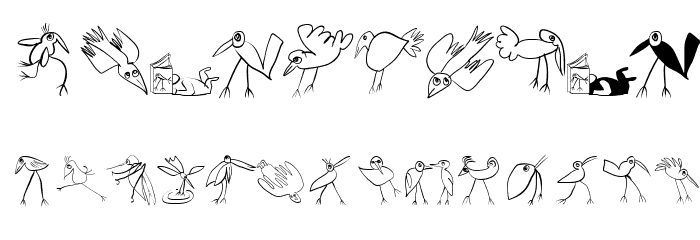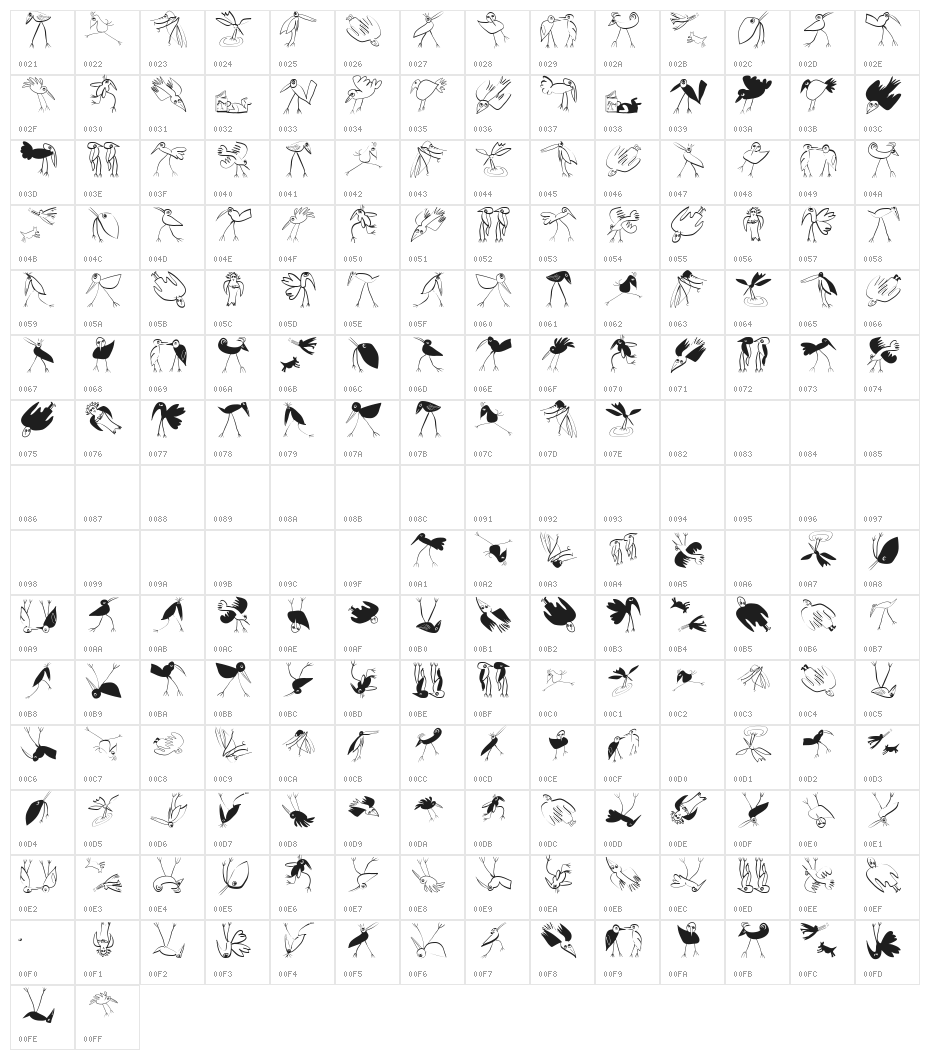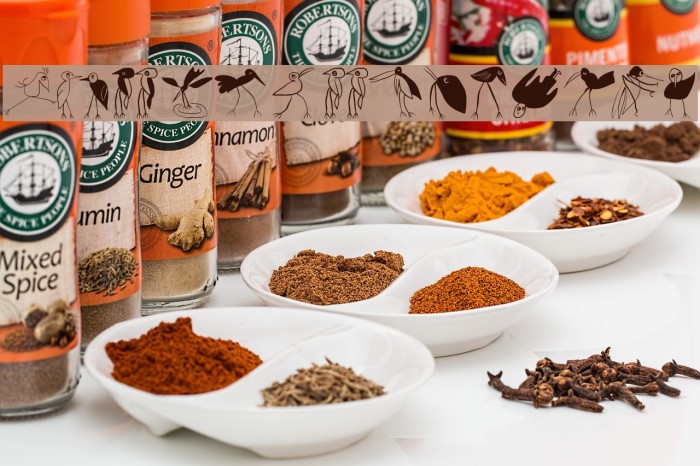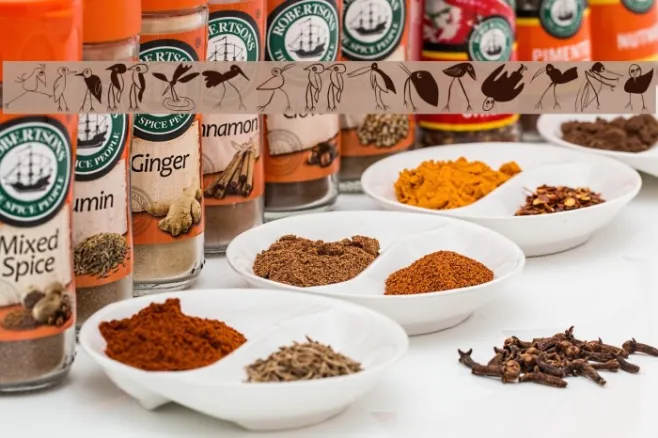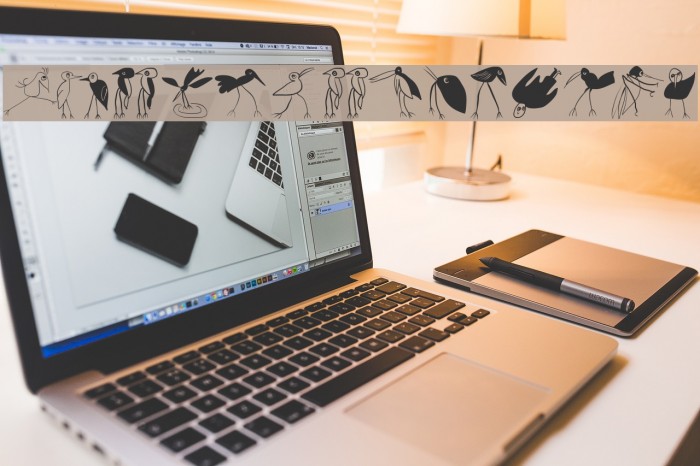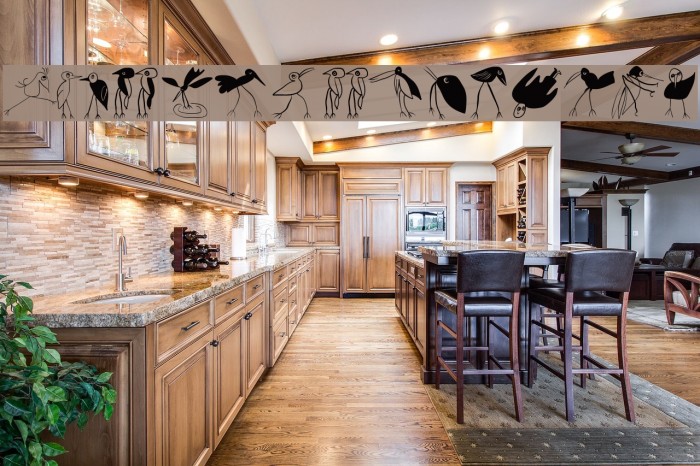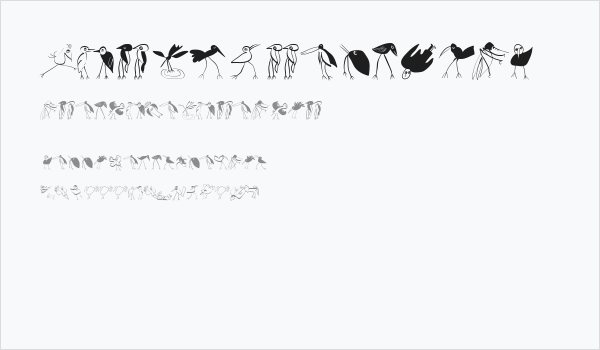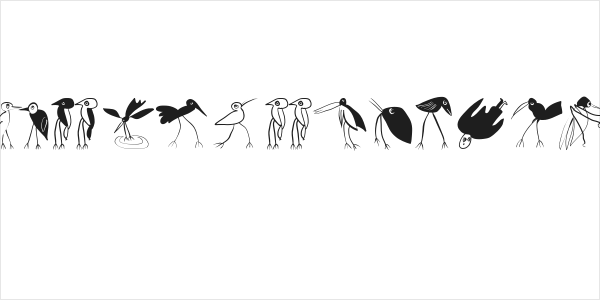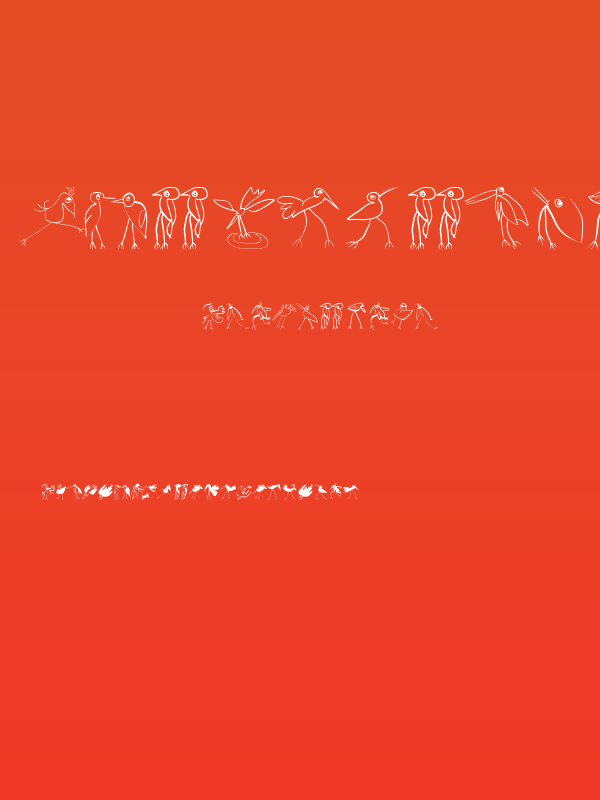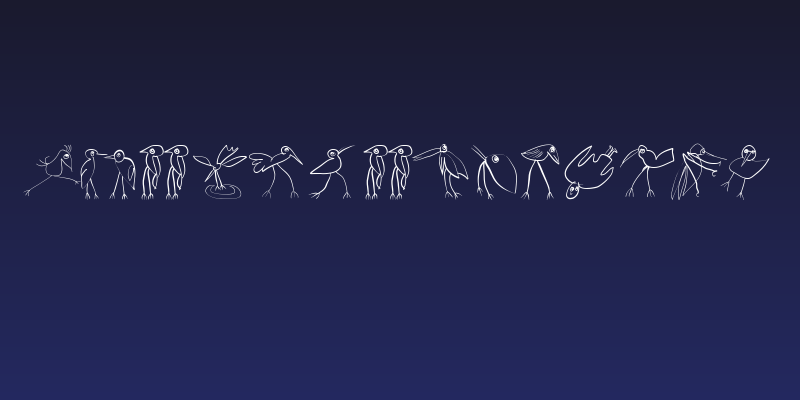
Birds-Relaunch Font
Birds-Relaunch Description
This is not a traditional font but rather a collection of whimsical bird illustrations, each with unique and playful characteristics. The images depict various bird-like figures in different poses and styles, ranging from simple line drawings to more filled-in silhouettes. The collection is characterized by its creative and humorous approach, offering a wide variety of bird designs that are more illustrative than typographic.